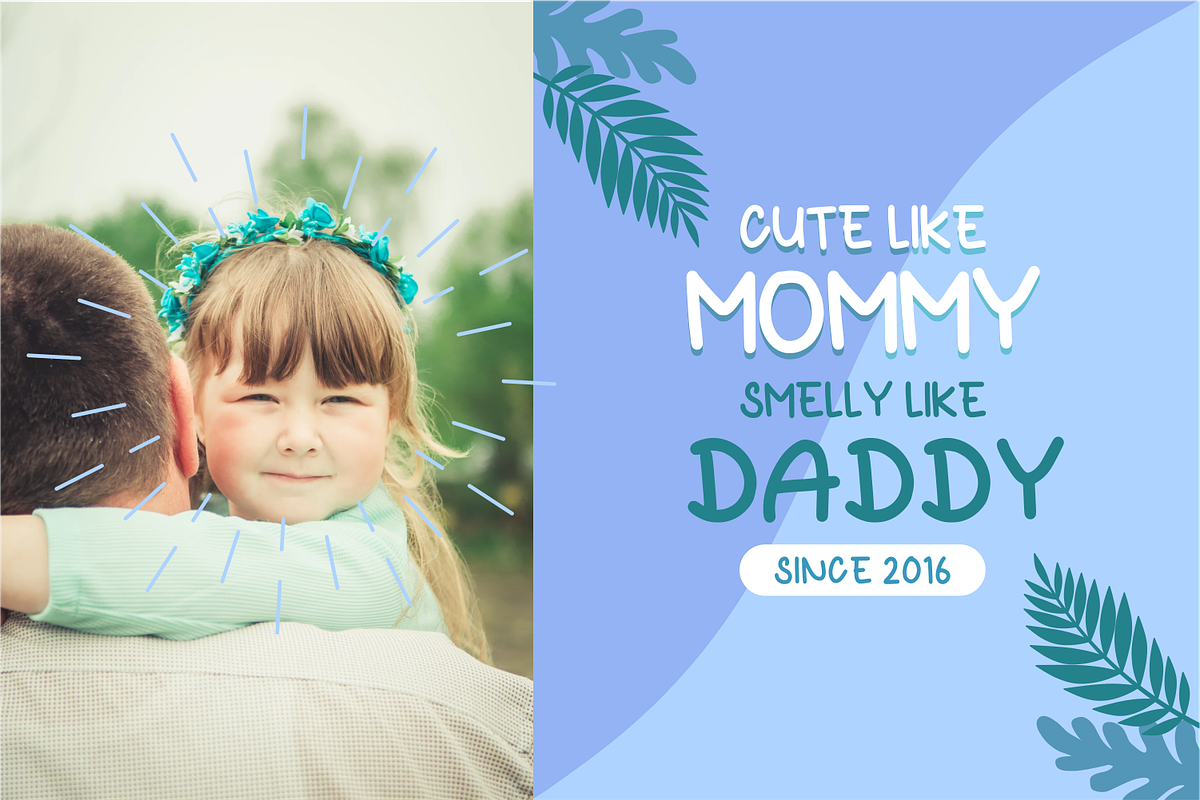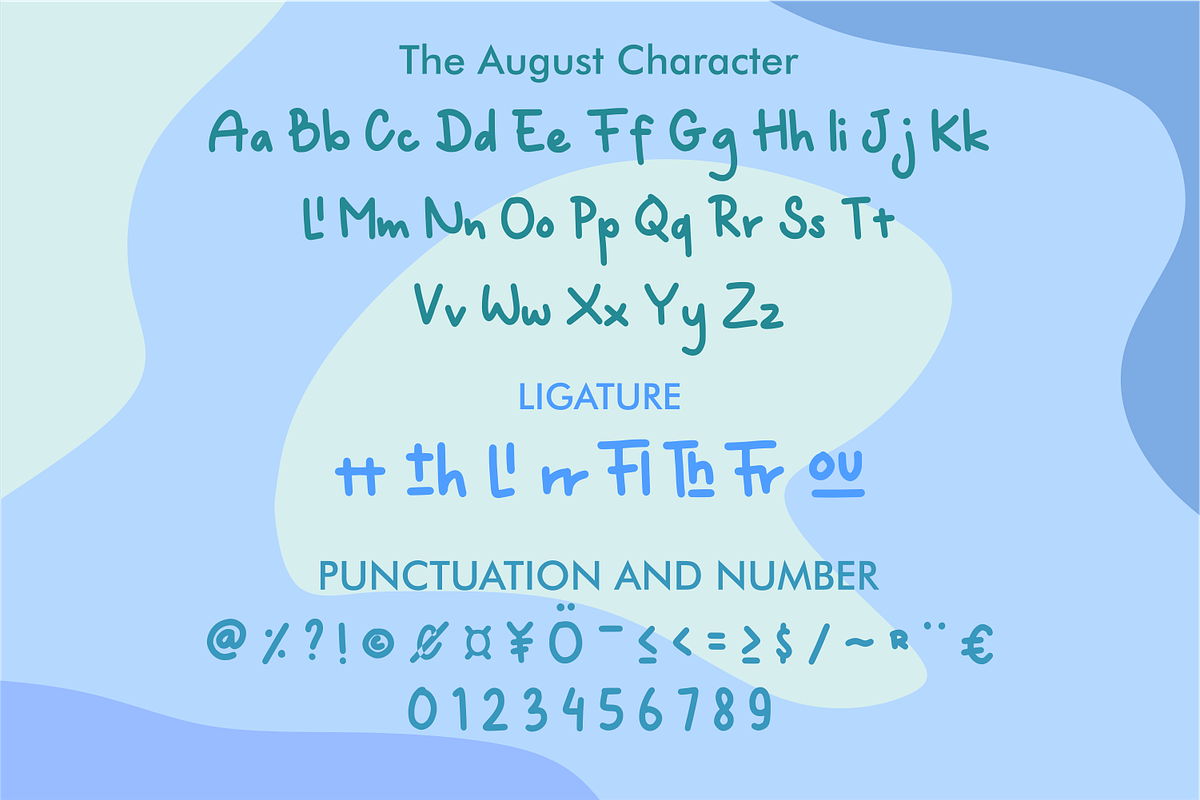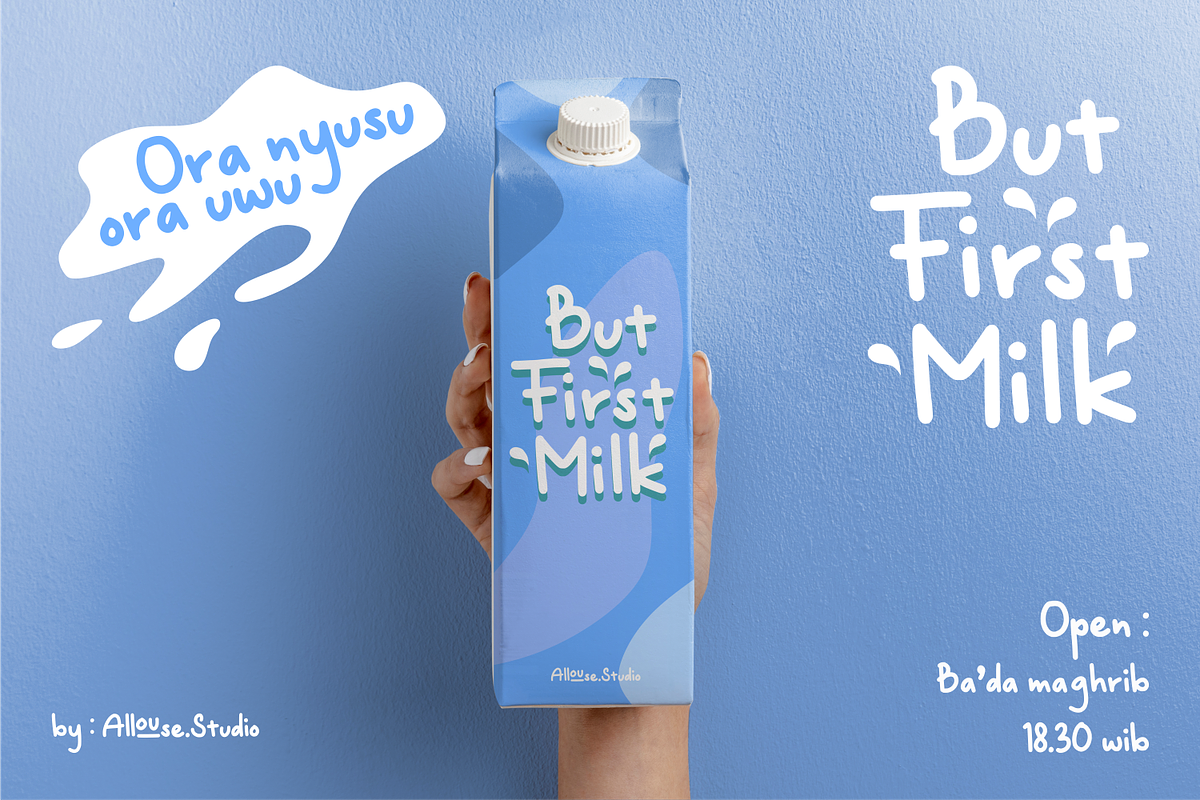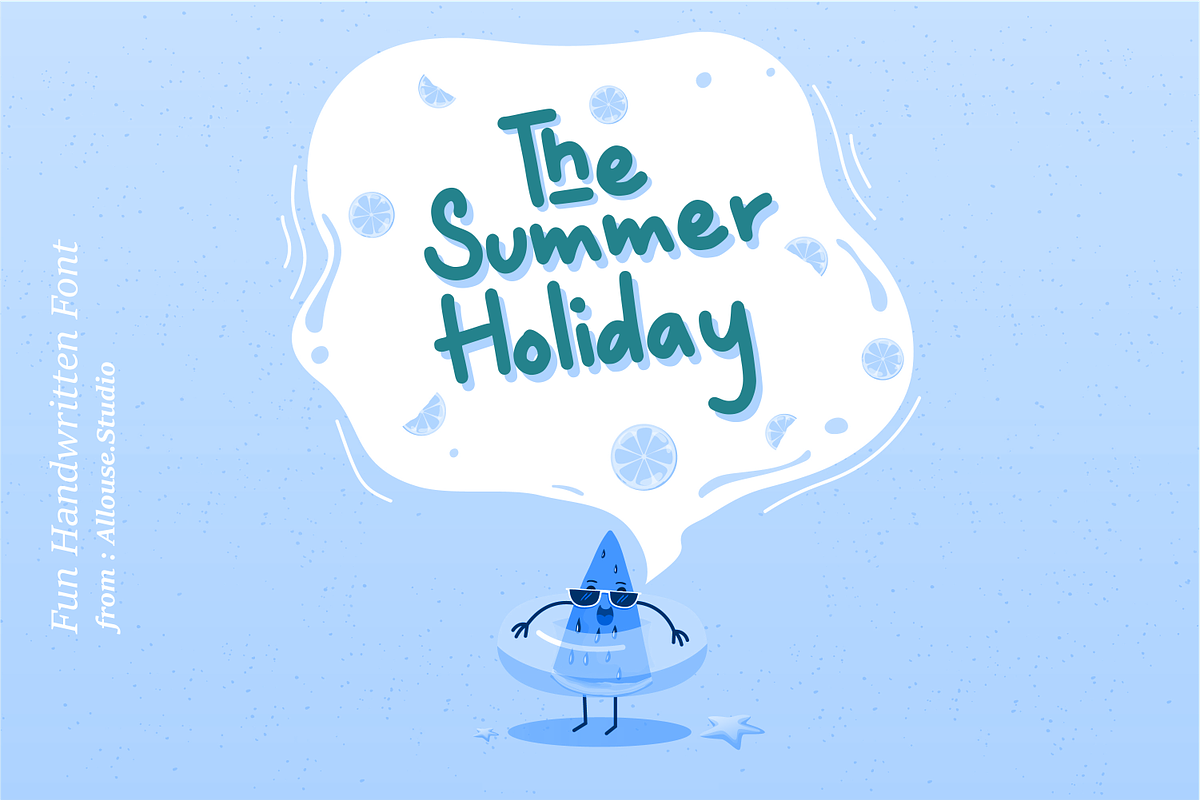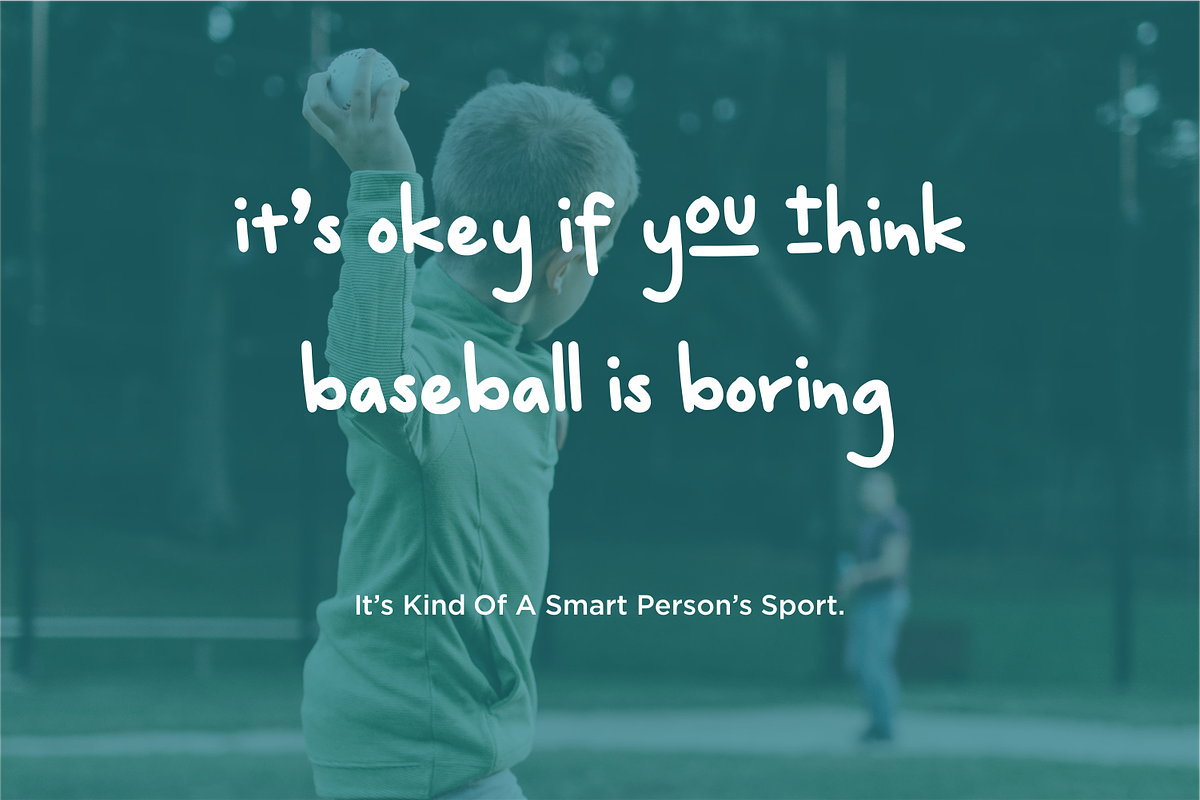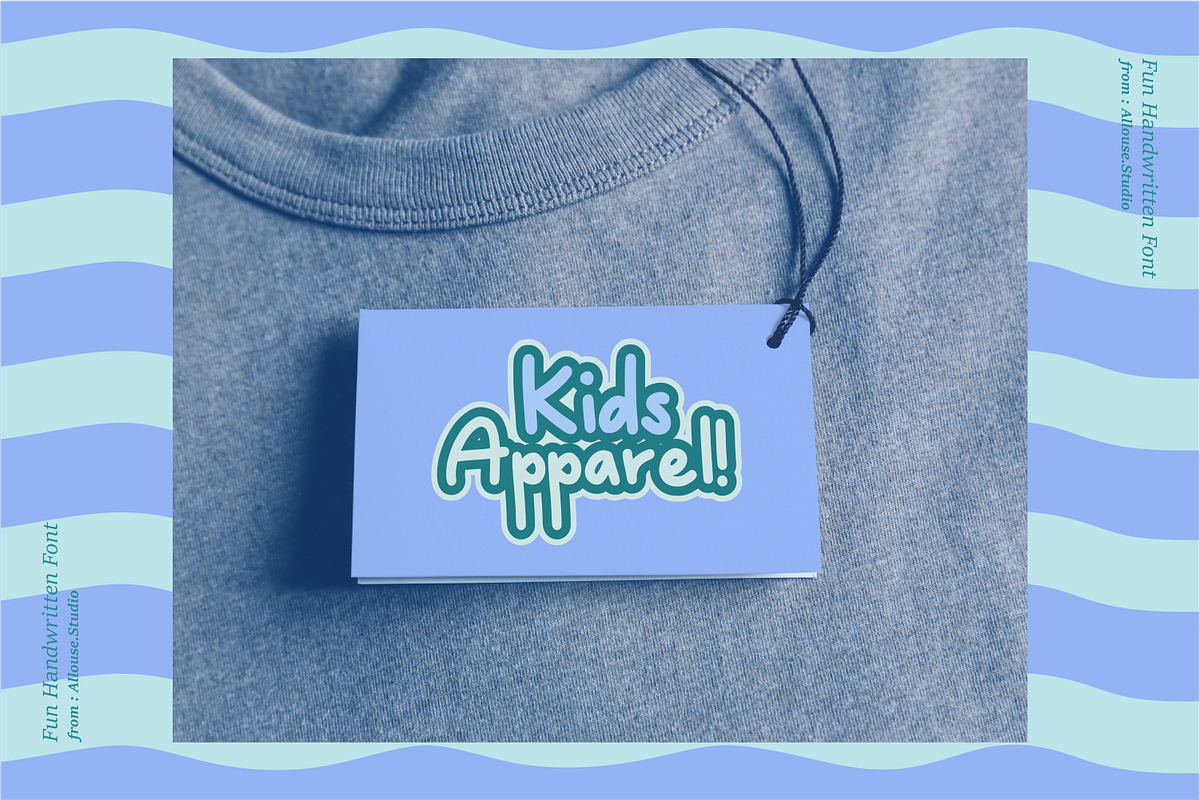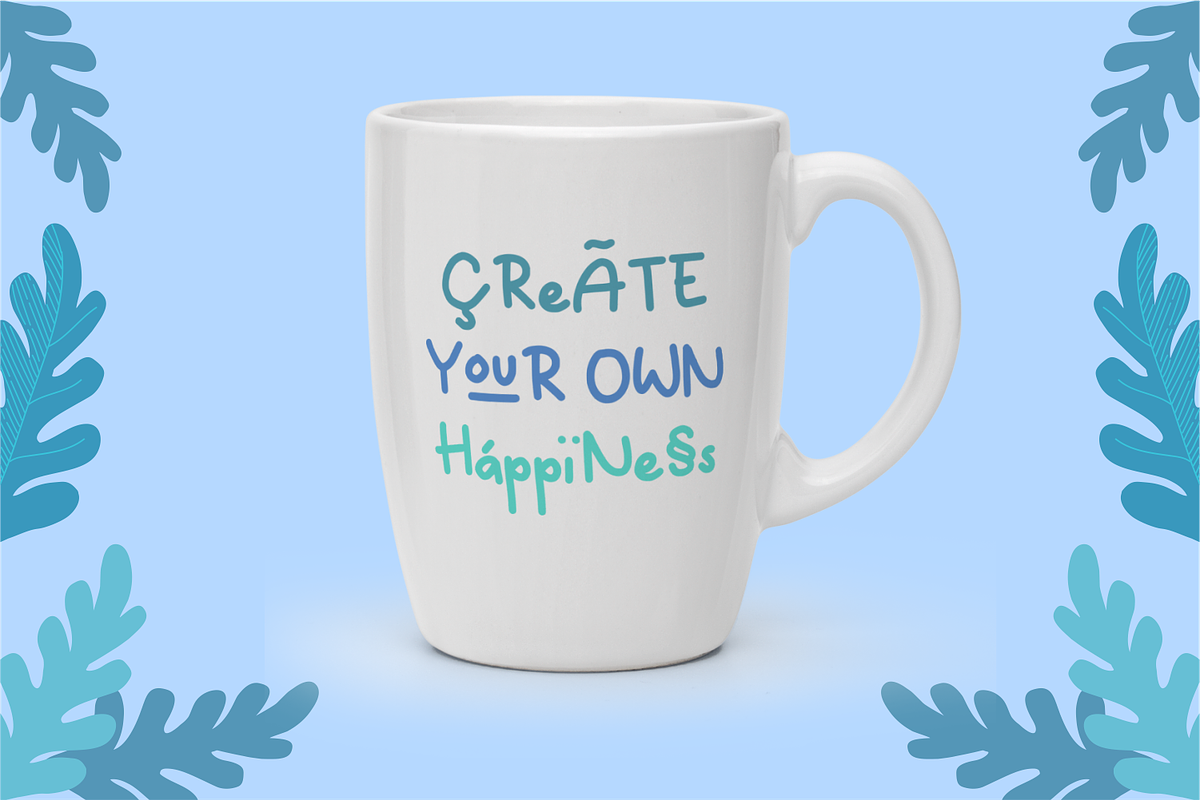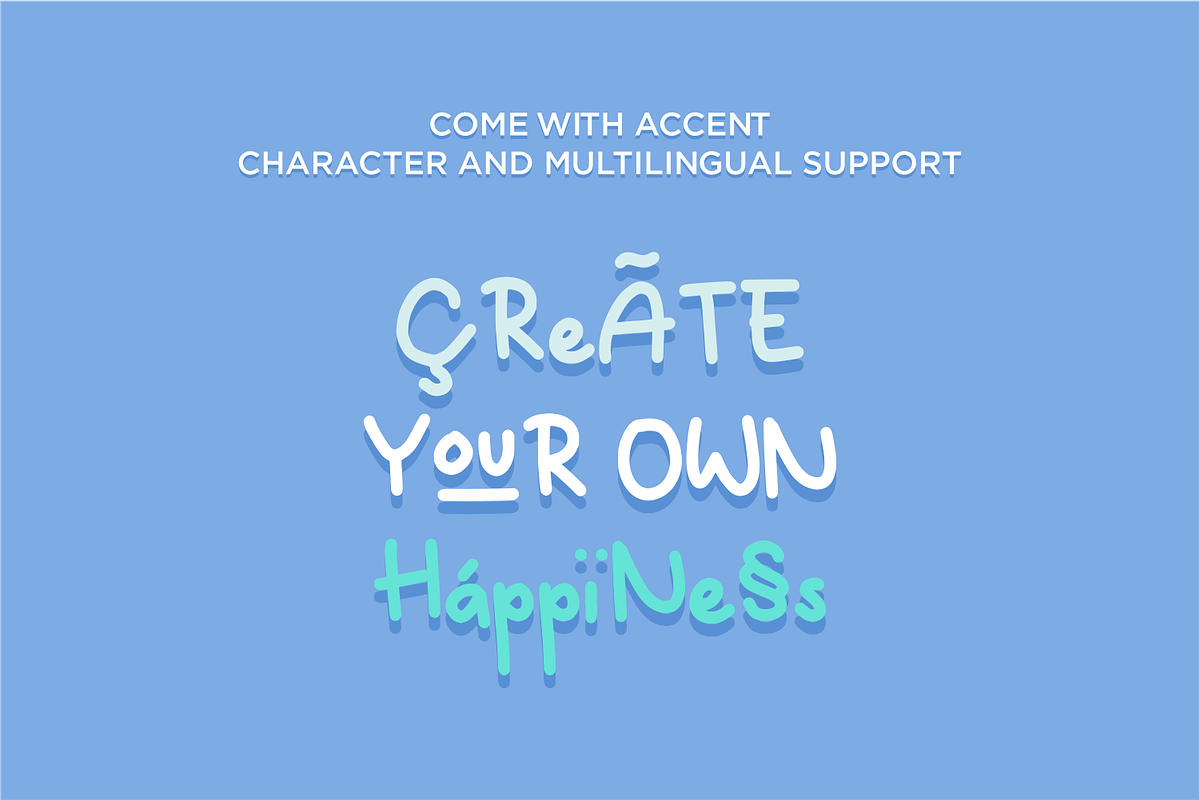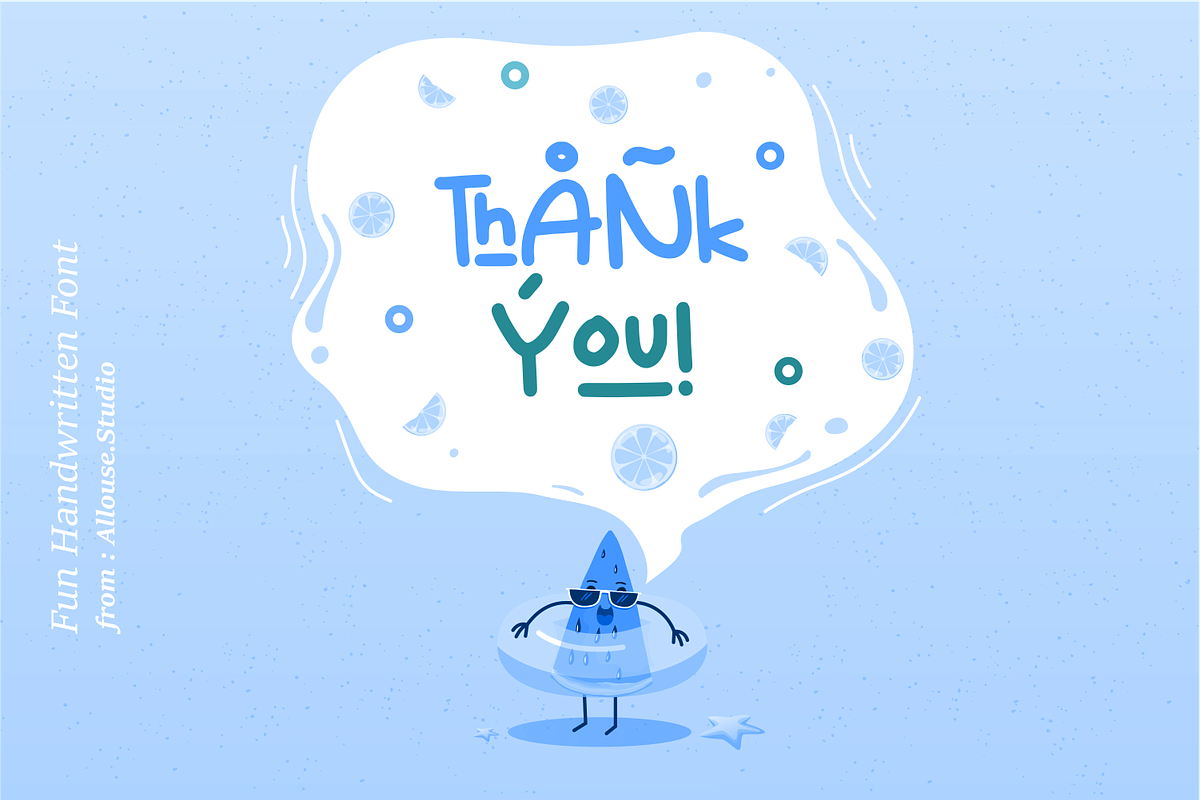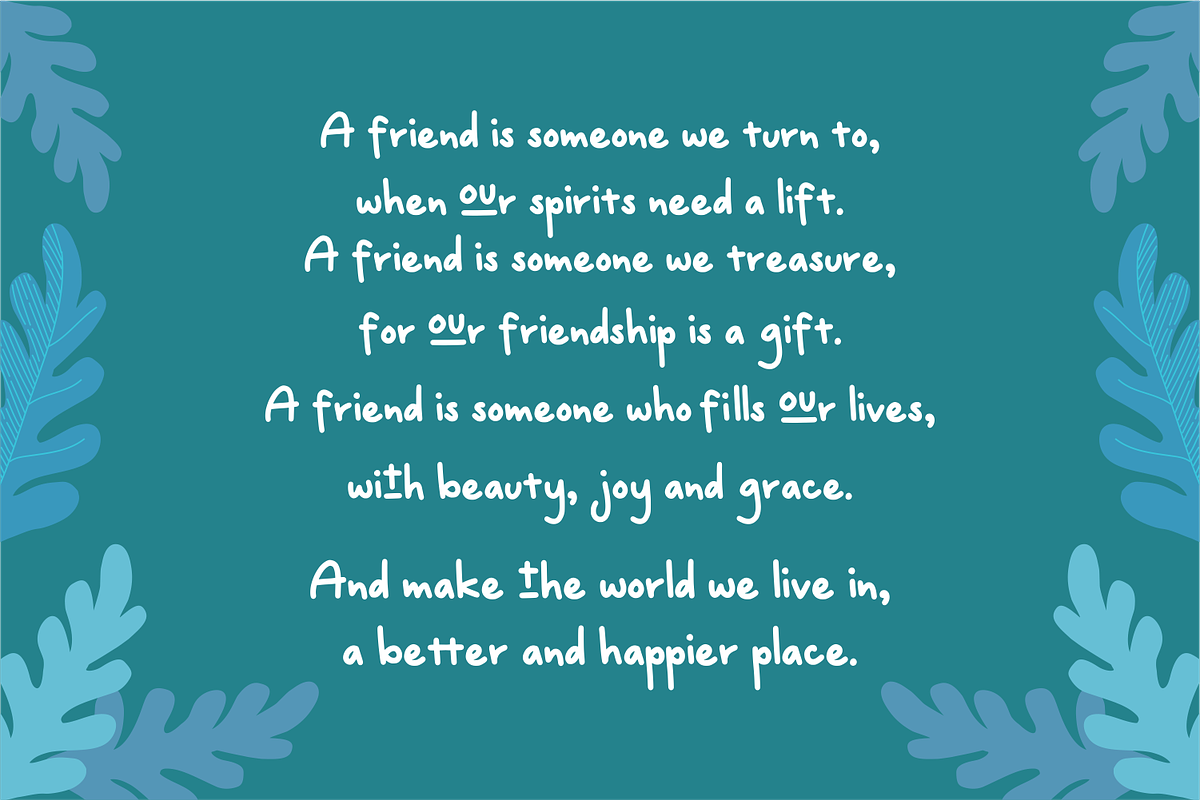
The August - Fun Handwritten Font
The August is a Fun Handwritten Font.
The August is perfect for product packaging, branding project, megazine, social media, wedding, or just used to express words above the background.